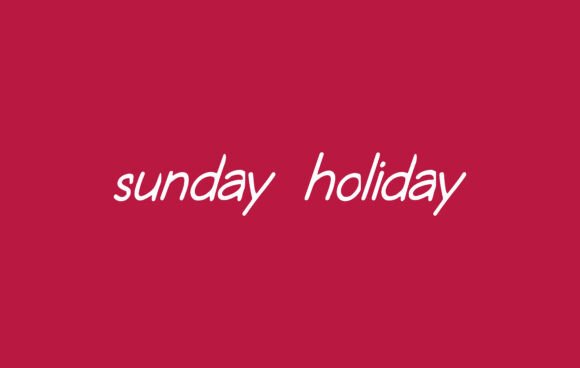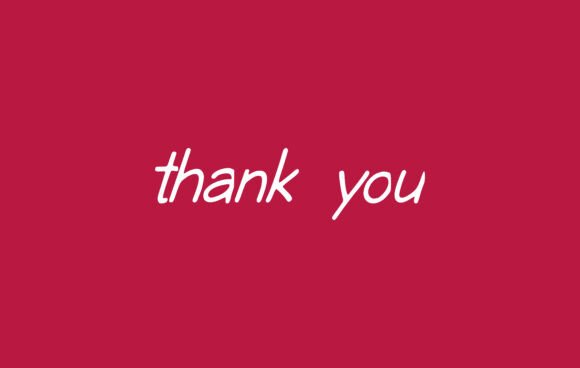
Havana Nights Font: Elevate Your Designs with a Romantic Touch
Are you searching for a font that can add a touch of romance and elegance to your designs? Look no further than the Havana Nights font. This authentic handwritten font is expertly designed to capture the essence of a bygone era, with a sophisticated and charming aesthetic that’s sure to leave a lasting impression.
What Makes Havana Nights Font So Special?
Havana Nights font is a true standout in the world of typography. Its unique blend of classic elegance and modern flair makes it the perfect choice for designers and crafters looking to add a touch of sophistication to their work. Here are just a few reasons why Havana Nights font is a must-have for any creative:
- Authentic Handwritten Style: Havana Nights font is a genuine handwritten font, with a warm and inviting feel that’s perfect for creating a sense of connection with your audience.
- Romantic Touch: This font has a distinctly romantic feel, making it ideal for use in wedding invitations, Valentine’s Day cards, and other designs where a touch of whimsy and charm is desired.
- Legible and Versatile: Havana Nights font is highly legible, making it perfect for use as both title and body text. Its versatility means it can be used in a wide range of designs, from magazine headlines to social media graphics.
Endless Design Possibilities with Havana Nights Font
The possibilities are endless when it comes to using Havana Nights font in your designs. Here are just a few ideas to get you started:
- Magazine Headlines: Use Havana Nights font to create eye-catching headlines that will draw readers in and make your magazine stand out.
- Social Media Graphics: Add a touch of elegance to your social media graphics with Havana Nights font, perfect for creating engaging and shareable content.
- Branding: Use Havana Nights font to create a cohesive brand identity that exudes sophistication and style.
- Wedding Invitations: Make your wedding invitations truly unforgettable with Havana Nights font, perfect for creating romantic and memorable designs.
- Cards and Stationery: Use Havana Nights font to create beautiful cards and stationery that will make your loved ones feel special.
Why Designers and Crafters Love Havana Nights Font
Designers and crafters love Havana Nights font for its unique blend of style, versatility, and charm. Here are just a few reasons why:
- High-Quality Design: This font is expertly designed to deliver high-quality results, with crisp and clear lines that will look great in any design.
- Unique and Authentic: Havana Nights font is a one-of-a-kind design that’s sure to make your work stand out from the crowd.
If you’re looking for a font that can add a touch of romance and elegance to your designs, look no further than Havana Nights font. With its authentic handwritten style, romantic touch, and versatility, this font is sure to become a favorite in your design arsenal. Whether you’re a seasoned designer or a crafty DIY enthusiast, Havana Nights font is the perfect choice for anyone looking to elevate their designs to the next level.